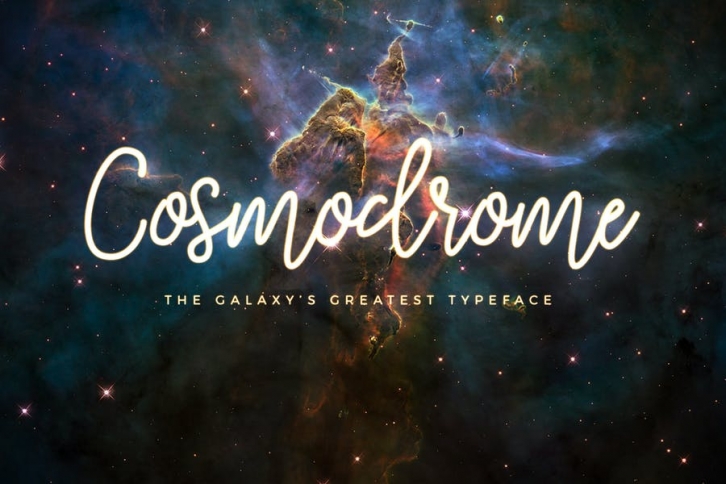
Cosmodrome Monoline Script is a typeface with a seriously fun aesthetic, perfect for logos, posters, signage, and more.
Included are standard Latin characters, extended Latin characters for multilingual support, select ligatures, and a complete set of numbers and symbols.
Cosmodrome is as flexible as it is beautiful, and works for everything from futuristic posters to feminine logotypes.